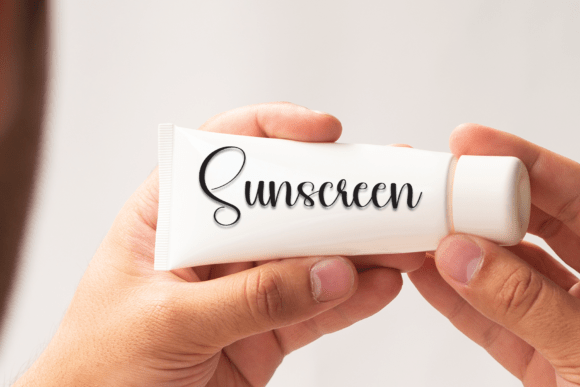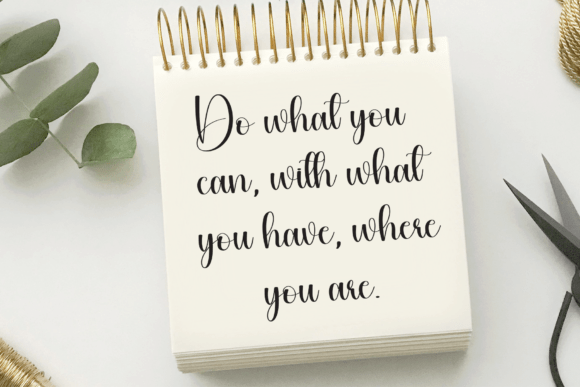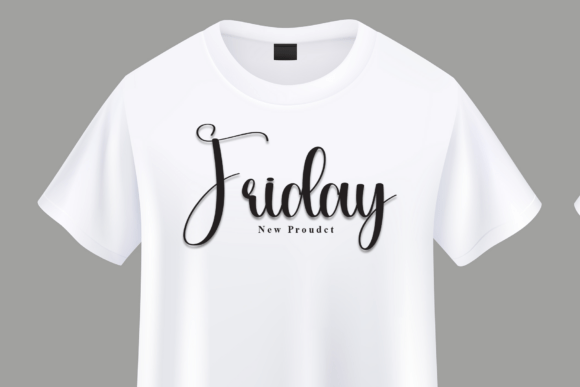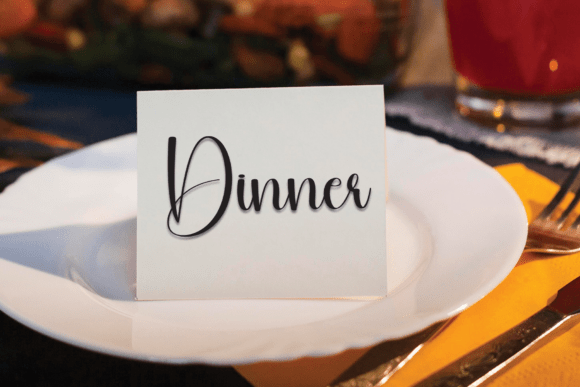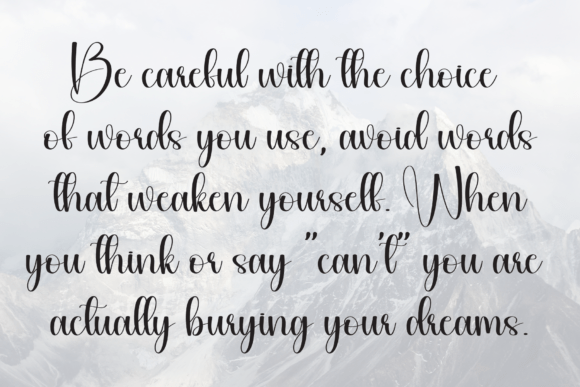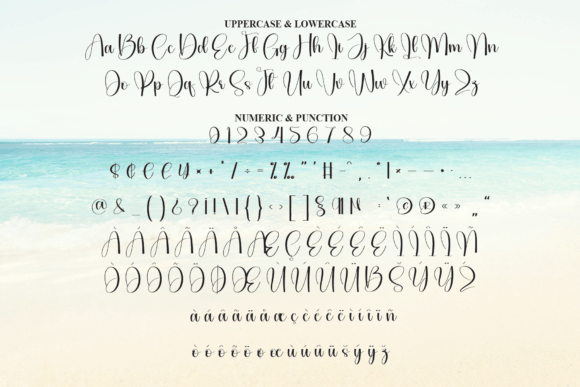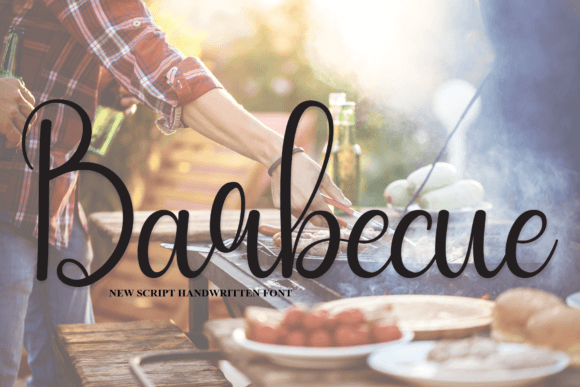
Soak Up the Sun with Beach Font
As a designer, there’s nothing quite like the feeling of capturing the essence of a season in a single project. For me, that moment came when I was tasked with creating a summer campaign for a beachwear brand. I wanted to convey the carefree, sun-kissed vibe of a day spent soaking up the sun by the ocean. That’s when I stumbled upon Beach Font – a handwritten script font that embodies the very spirit of summer.
Beach Font is a breezy, elegant font perfect for anything that needs a touch of coastal charm. With its playful curves and relaxed style, it’s a designer’s dream come true. Whether you’re creating a logo, social post, or wedding invitation, Beach Font is sure to add a touch of whimsy and personality to your design. And as a designer, that’s priceless.
Key Features of Beach Font
- Font Family: A unique, hand-drawn font designed to evoke the feeling of a beach vacation.
- Unique Characteristics: Features a relaxed, casual feel with subtle wave-like strokes and irregular letterforms, giving it a distinctive beachy vibe.
- Character Set: Includes a wide range of characters, including Latin, Greek, and Cyrillic alphabets, as well as punctuation and symbols.
Designer Review: Beach Font
Overall, I’m quite impressed with Beach Font. It’s a fun, laid-back font that’s perfect for any beach-themed design project. ✨ The font’s playful feel is infectious, and it’s easy to see why it’s become so popular. ✨
One of the things that works well about Beach Font is its flexibility. It’s available in a range of weights, from light to bold, which makes it easy to use in a variety of contexts. ✨ The font also looks great in both uppercase and lowercase, and it’s surprisingly legible even at smaller sizes.
Here are a few things to consider when using Beach Font:
- ⚠️ It may not be suitable for formal or professional projects, as it’s a bit too playful for those types of designs.
- ⚠️ The font’s beachy vibe may not translate well to designs that aren’t beach-themed, so be sure to use it in a project where it makes sense.
- ⚠️ Depending on the design project, Beach Font may not be the best choice for small text or headings, as it can be a bit too ornate for those purposes.
Overall, I think Beach Font is a great choice for designers who want to add a bit of fun and personality to their projects. Just be sure to use it in a way that feels authentic and on-brand.
Beach Font works well for creating tropical-themed designs, such as beach invitations, posters, and social media graphics.
Beach Font is ideal for creating intricate, layered designs, such as beach-themed logos, posters, and artwork.
- Use Beach Font to add a touch of whimsy to your presentations and documents.
Beach Font works well for creating fun, playful designs, such as beach-themed presentations, reports, and newsletters.
Beach Font is perfect for:
- Beach-themed designs
- Tropical-inspired artwork
- Summer-themed events and promotions
- Fun, playful designs
By following these steps and experimenting with Beach Font, you can create unique and eye-catching designs that evoke the feeling of a beach vacation.